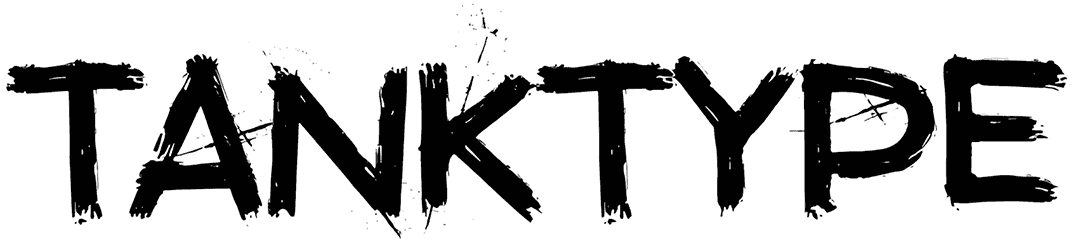
Tanktype Font
Think about how an 80s brush font will make your writing fit contemporary and cool tastes. Tanktype can satisfy you. With a messy letterform design, this urban font will display your upcoming project well. There is no lowercase, but just test Tanktype on texts such as flyers, covers, backgrounds, or anything you want, and show off your creativity.
Tanktype – Painted by hand brush. Grunge military font for decorations.
Font bursting with energy, quick strokes, and sharp edges. Ideal for loud messages.If you want to use it for commercial purposes please buy license here: http://www.leosupply.co /